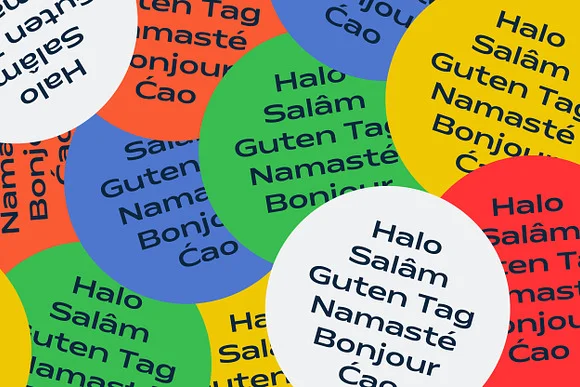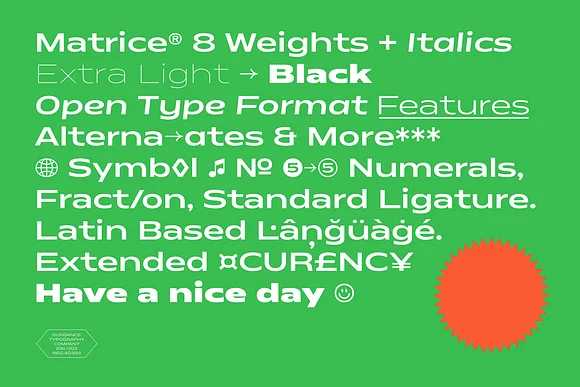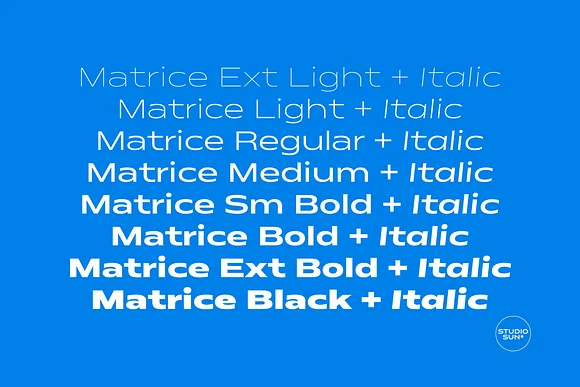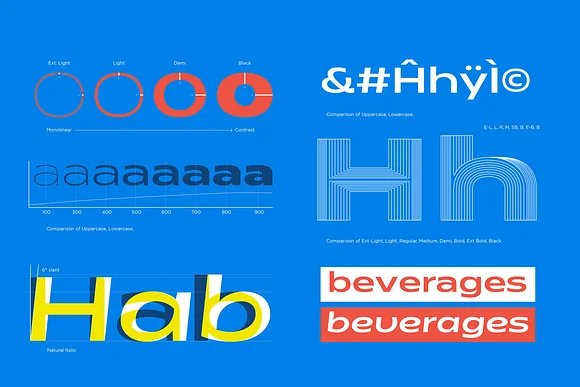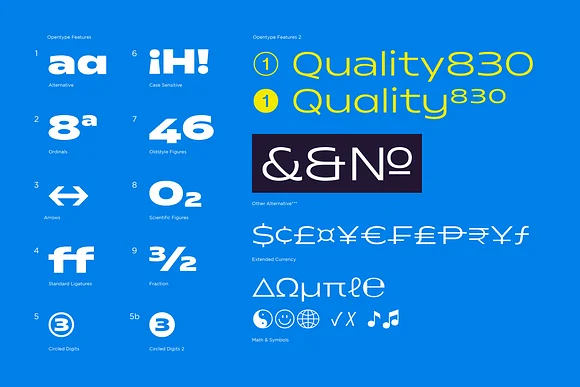
Matrice - Font Family
There is a particular satisfaction in finding a typeface that delivers the kind of restraint that lets content lead without compromise. Matrice - Family consistently provides it. The typeface brings a versatile sensibility to a broad range of creative disciplines, with refined proportions and careful stroke modulation that holds up whether the work is print-first or screen-first.
In practice, Matrice - Family proves particularly effective for environmental graphics, advertising campaigns, social media graphics, brand identity systems, product labels. Designers reaching for it find that the type decisions feel resolved rather than laboured — a useful quality when client timelines are tight.
The range of applications extends to annual reports, web design, packaging design, signage systems. That breadth is deliberate: the proportions and spacing were stress-tested across a wide range of mock briefs before the typeface was finalised.
The consistent rhythm of Matrice - Family across a full paragraph creates the kind of even grey value that makes extended reading comfortable, a detail that matters more in long-form content than its subtlety might suggest.
Motion designers building title sequences and lower thirds find Matrice - Family a reliable choice for projects that demand both personality and restraint. The design avoids the self-conscious quirkiness that dates quickly, settling instead for considered distinctiveness that holds up over time.